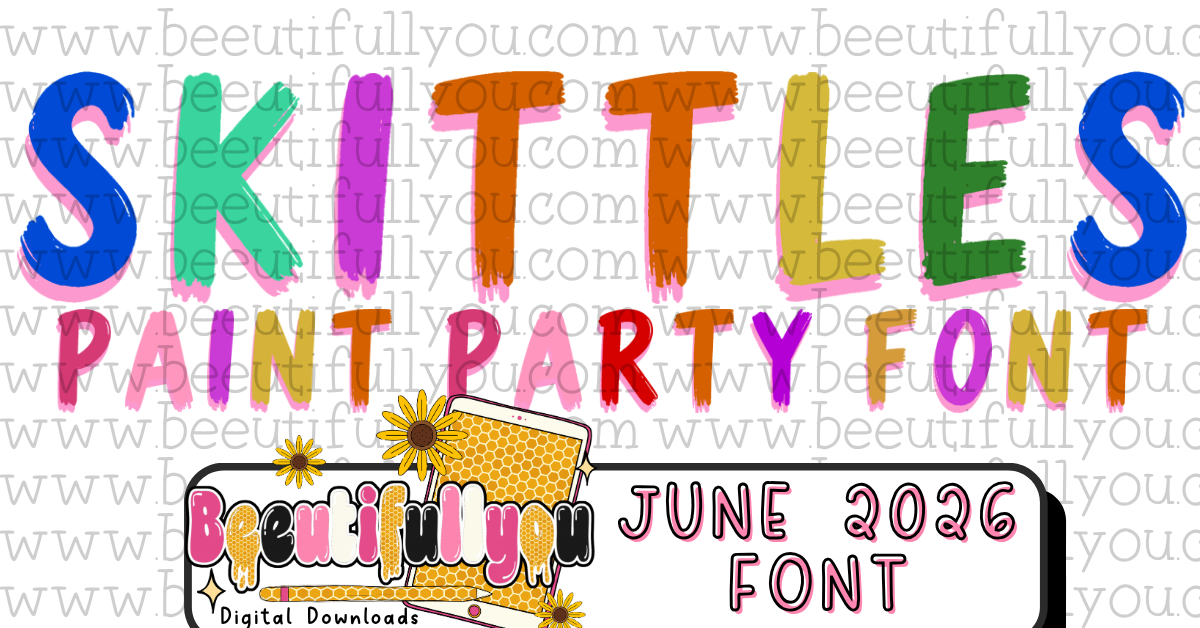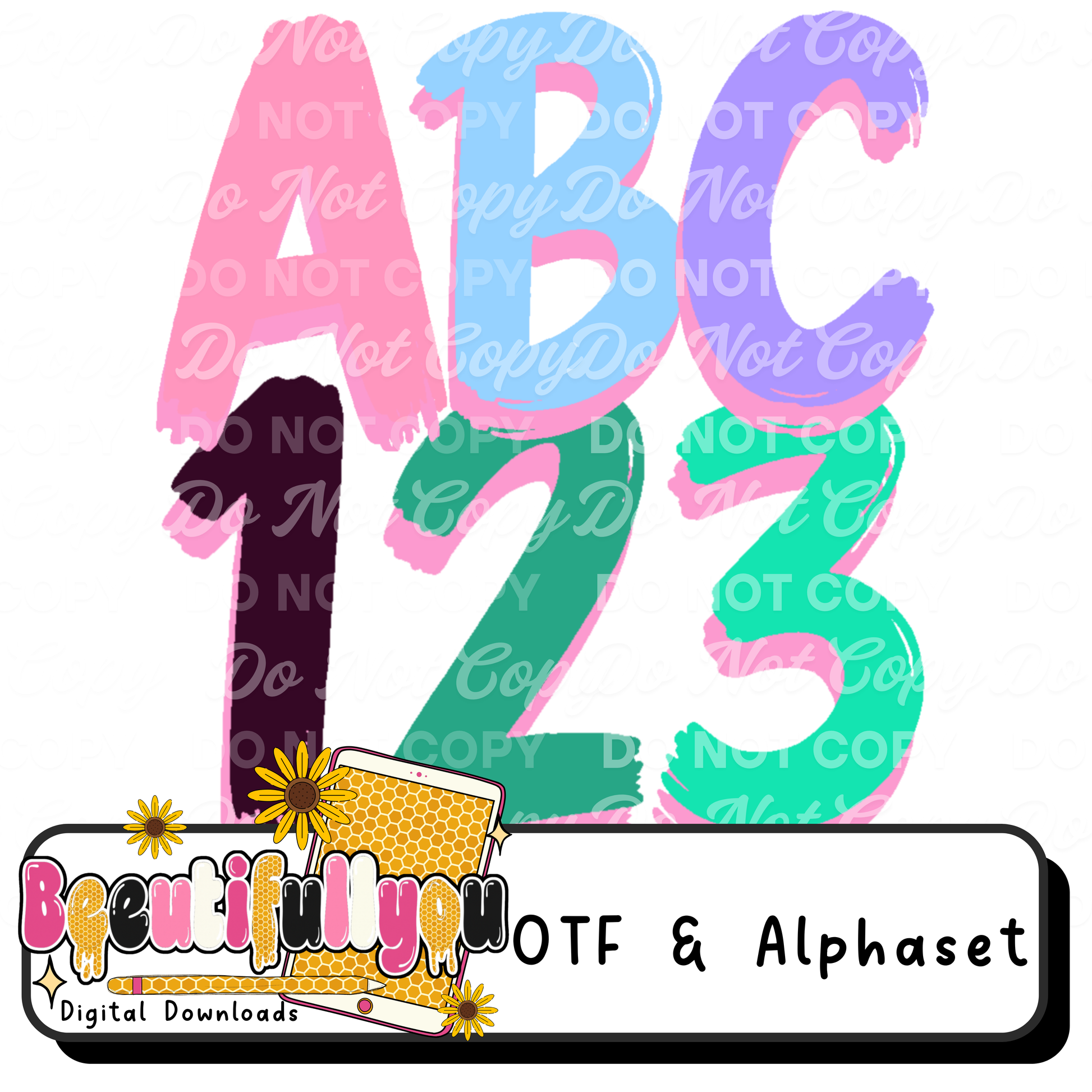
Bright, bold, colorful, and full of creative energy! Skittles Paint Party is a playful paintbrush-style font featuring fun brushstroke edges, vibrant colors, and a matching alphabet set perfect for kids' designs, classroom projects, birthday themes, summer graphics, and colorful handmade creations.
β¨ FONT STYLE:
- Colorful Paint Brush Lettering
- Hand-Painted Look
- Fun Kid-Friendly Aesthetic
- Bright Rainbow Colors
- Playful Creative Typography
- Bold Easy-to-Read Letters